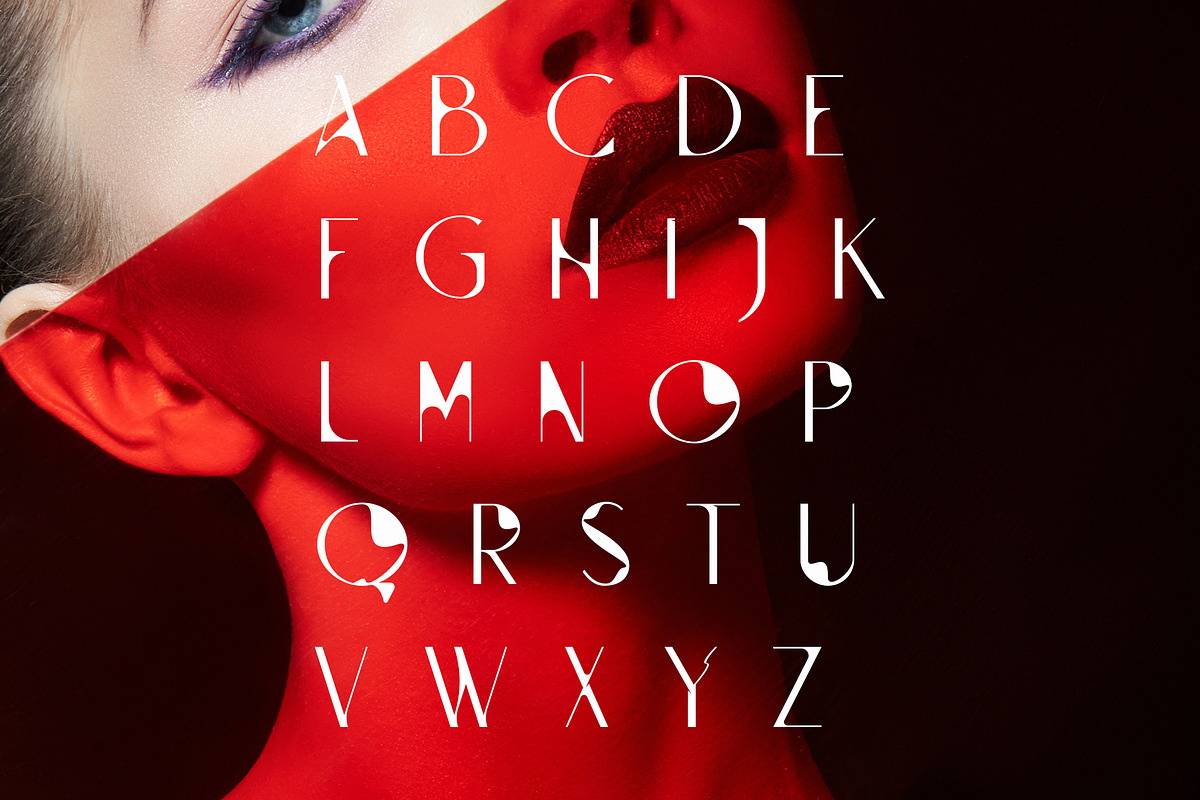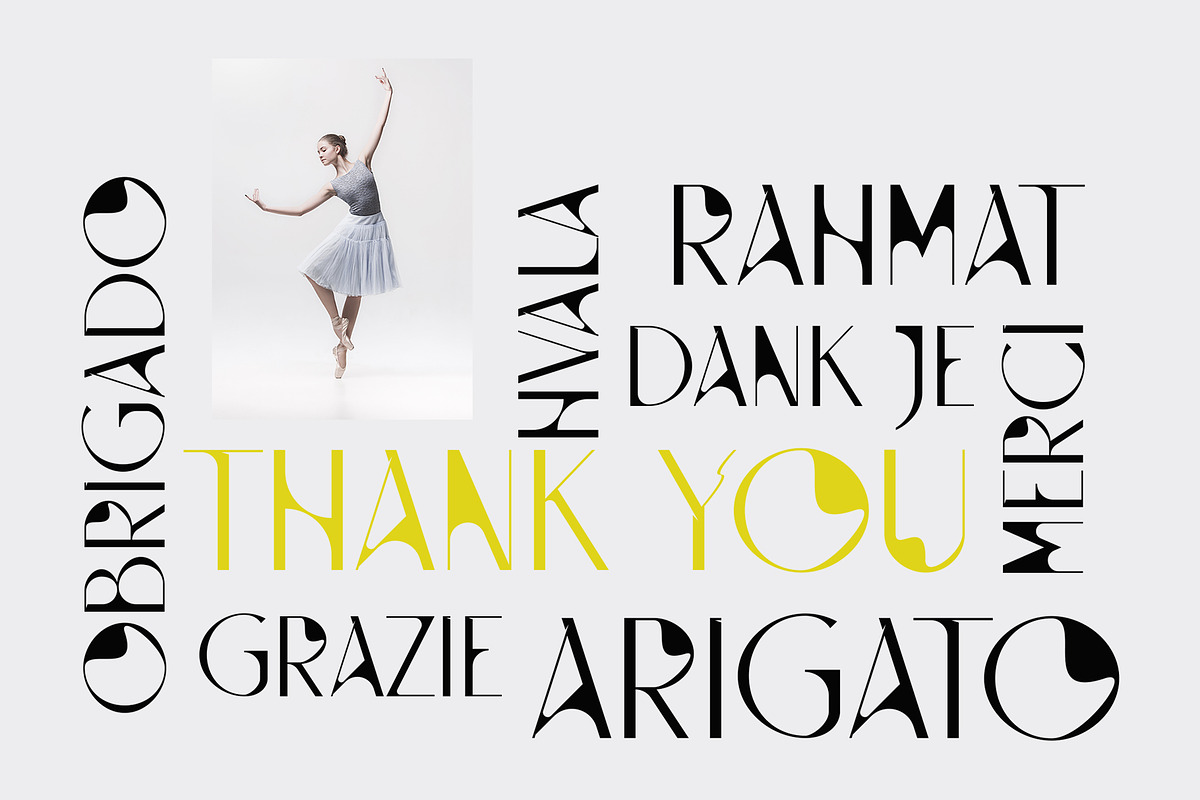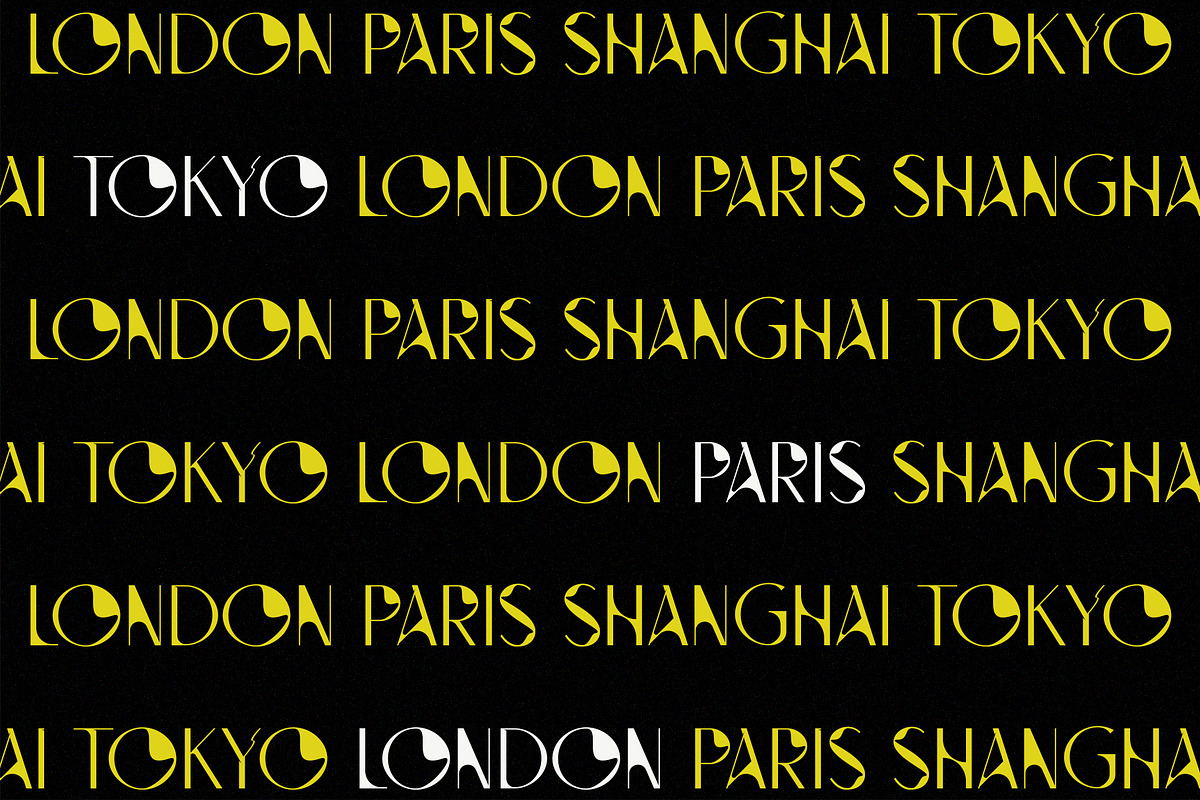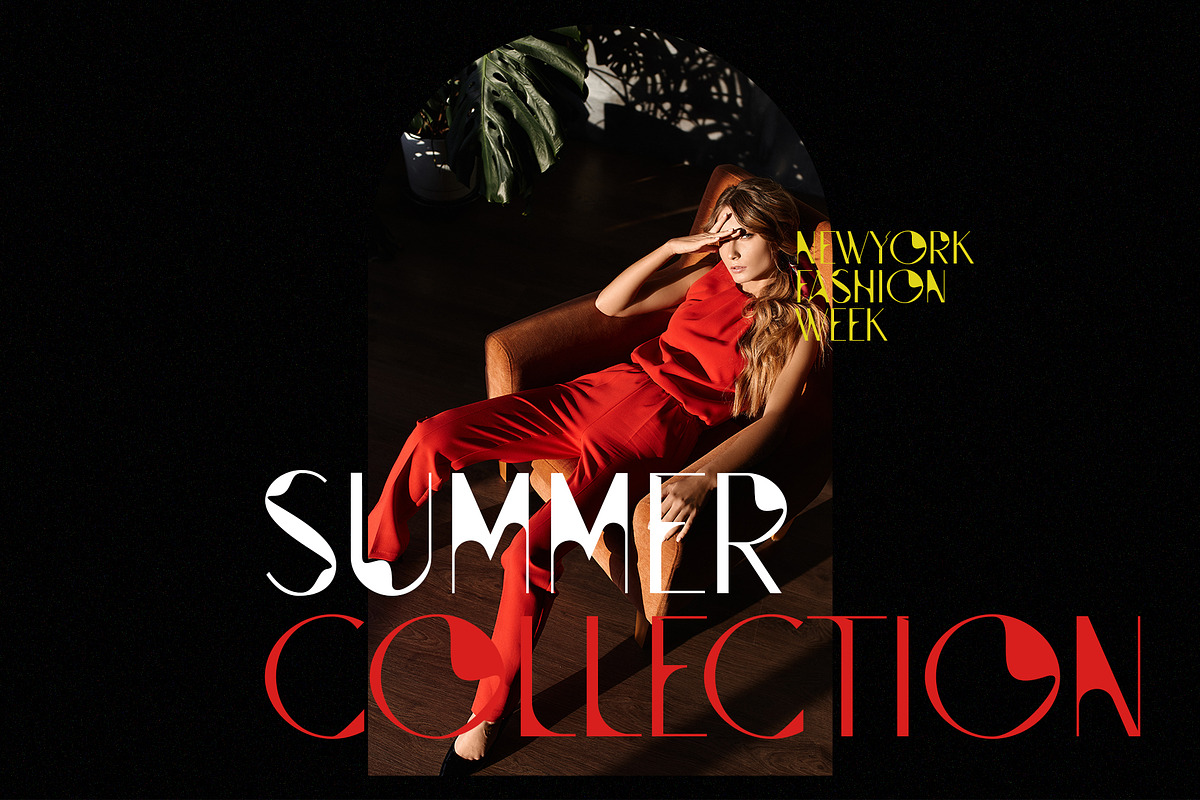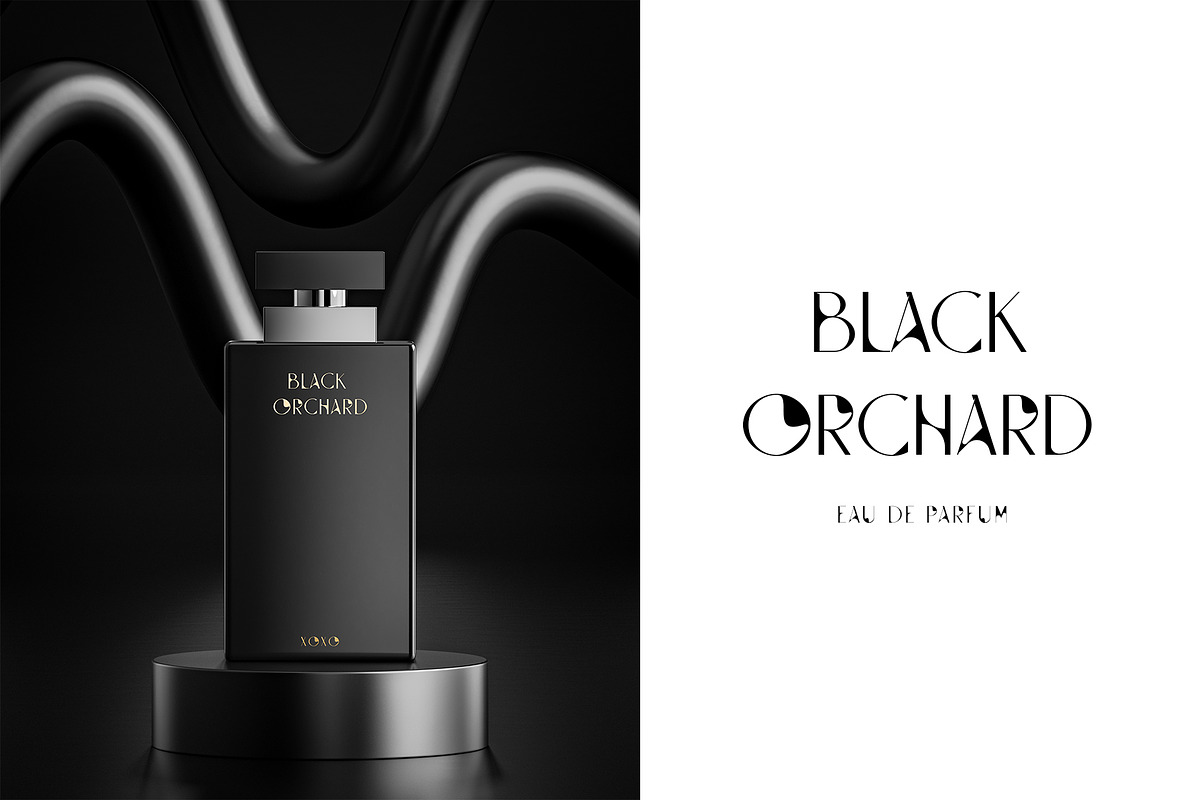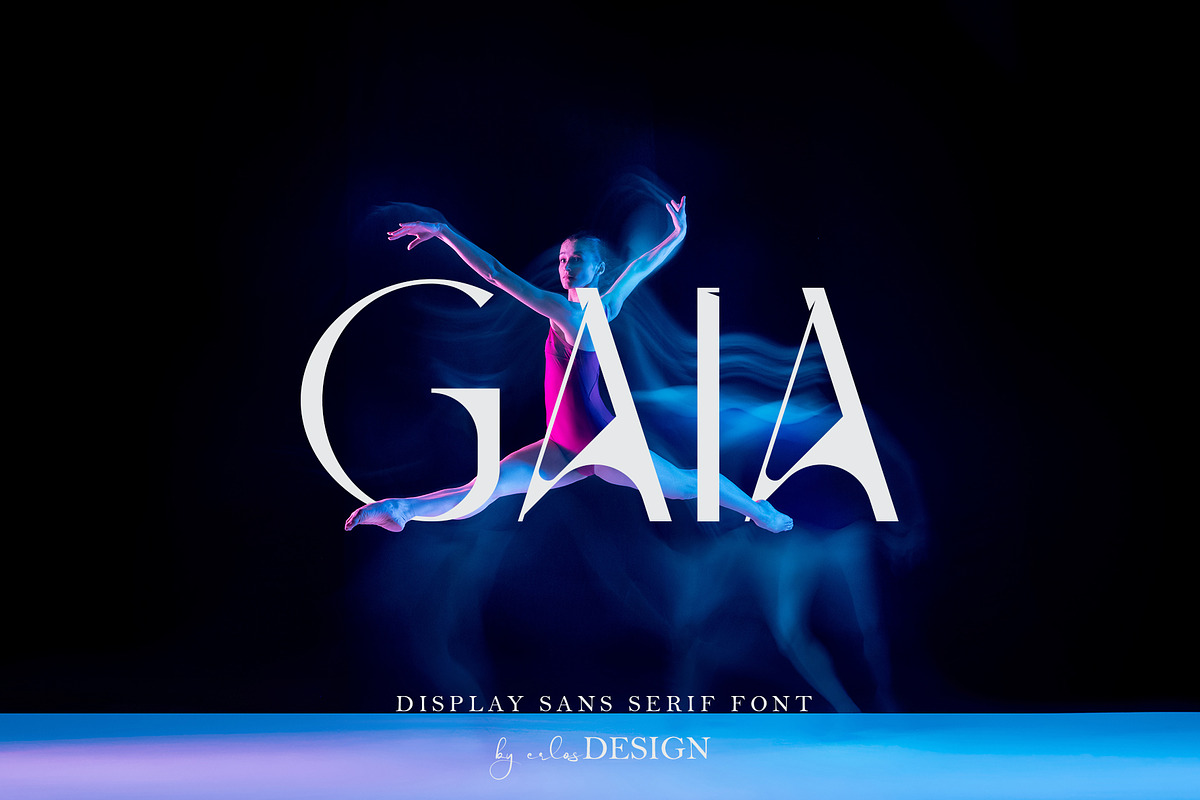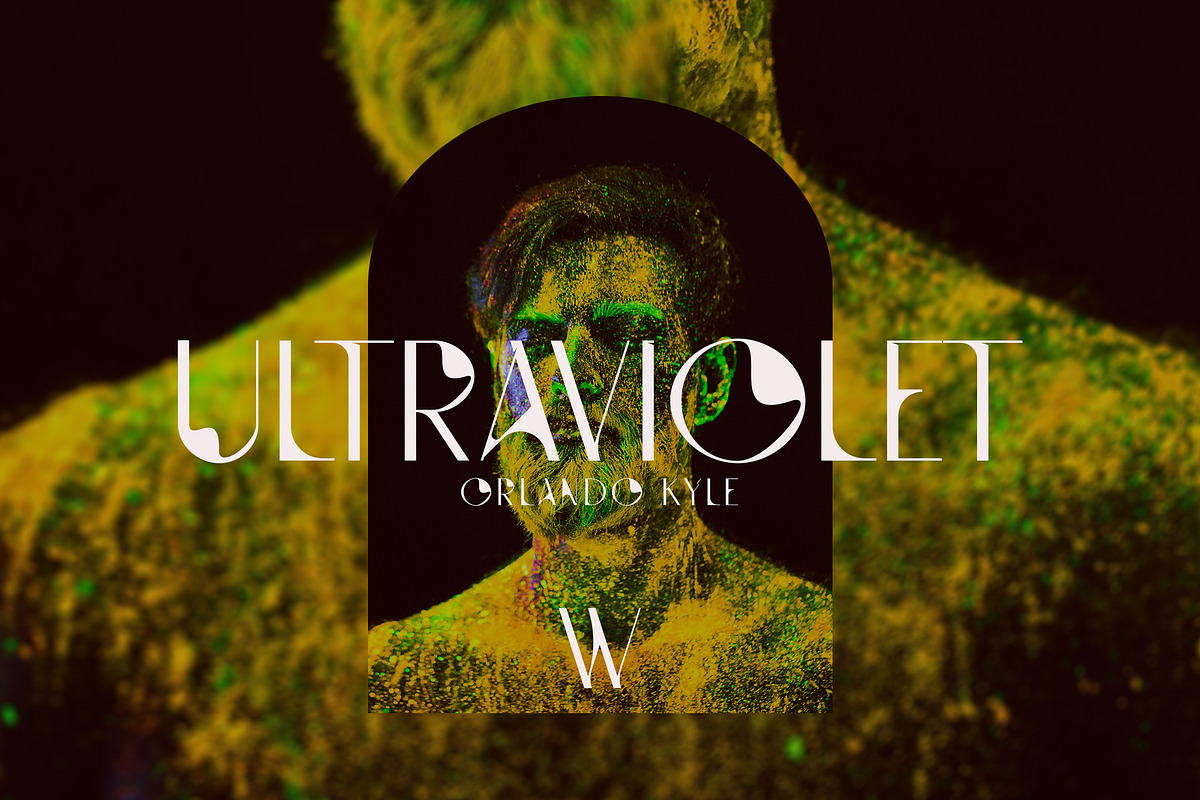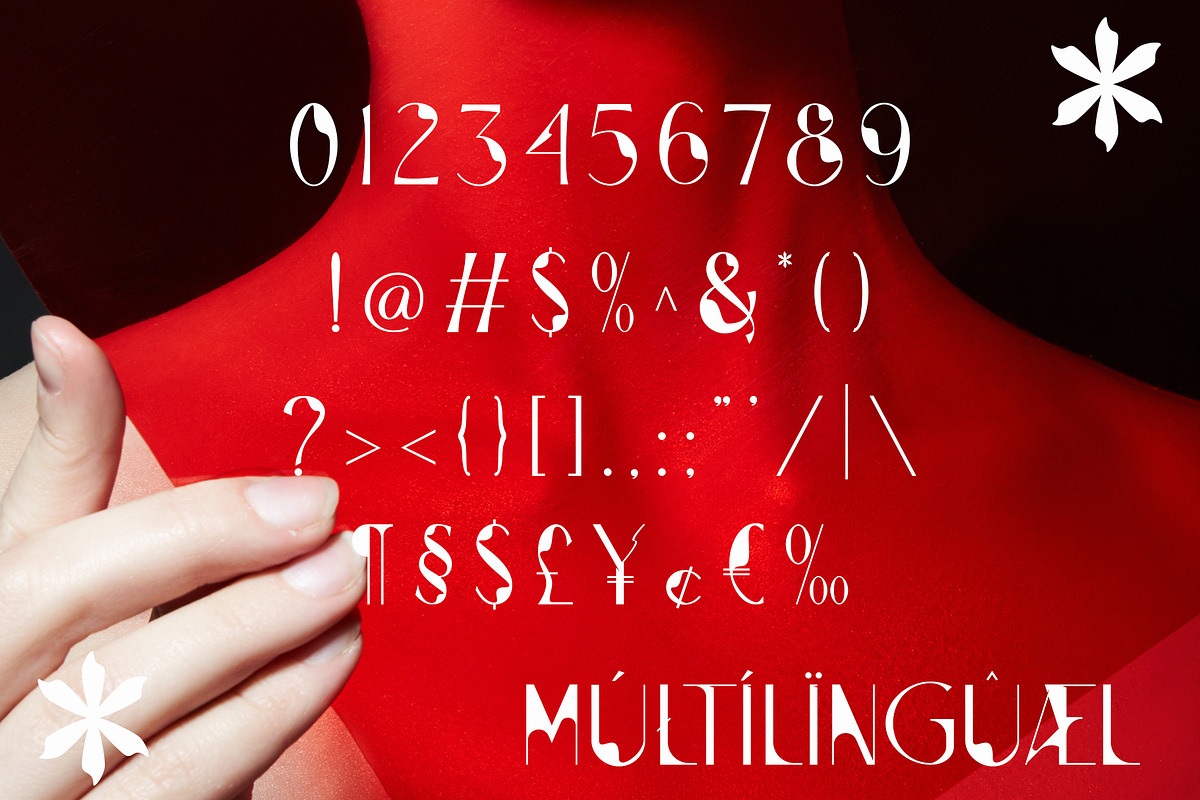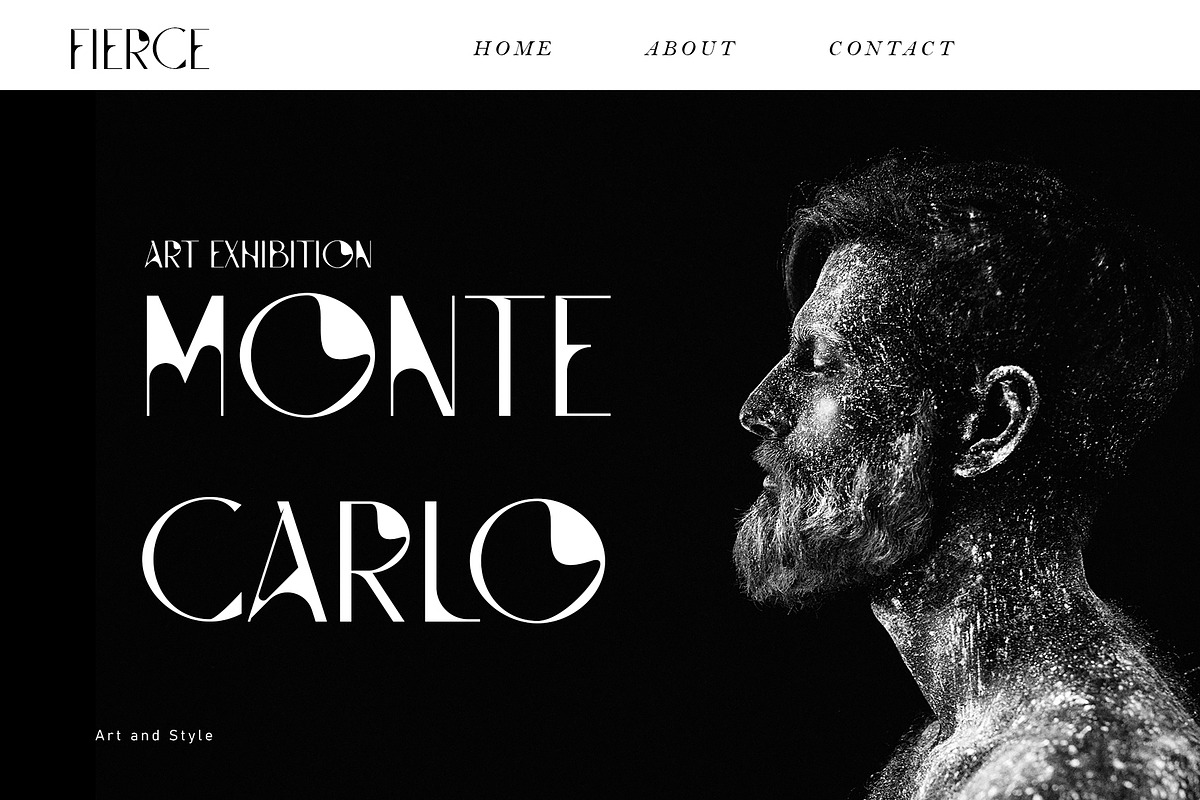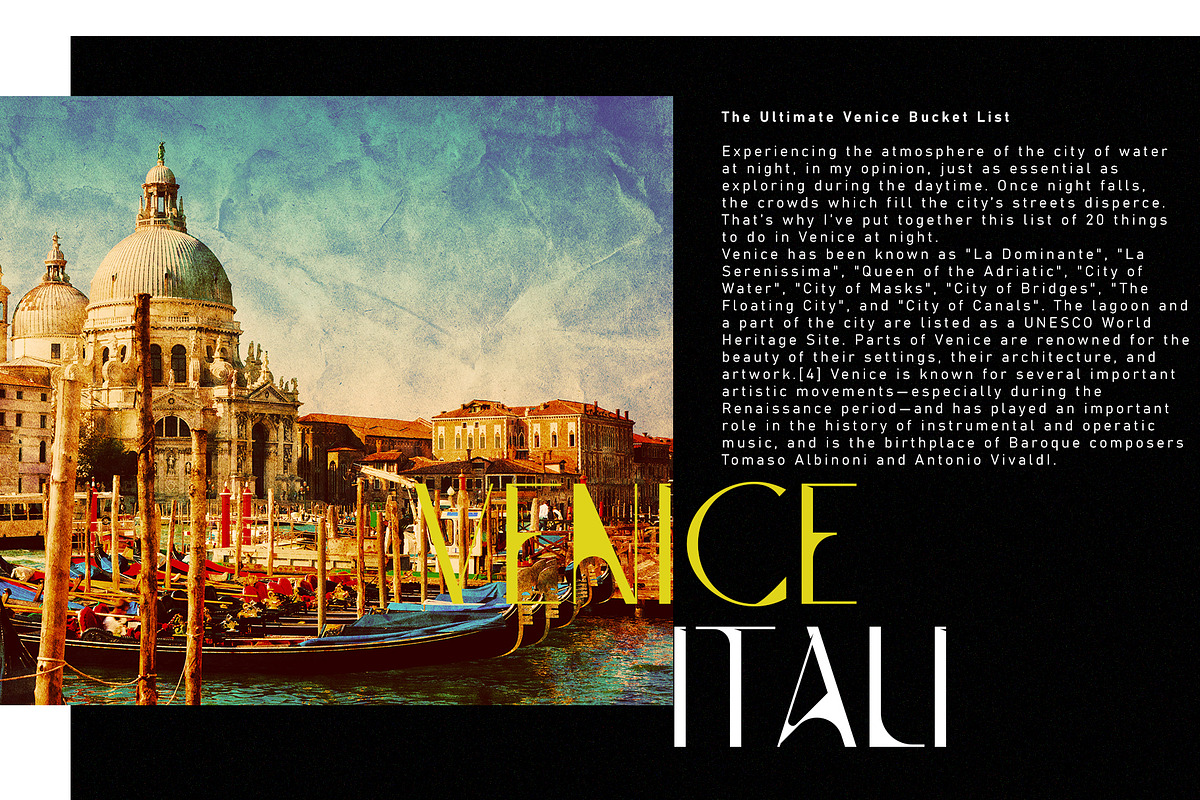
GAIA display sans
GAIA - Display Sans Serif Font by erlosDESIGN
GAIA is a display sans serif font with modern style. It includes uppercase letters, numeral, a large range of punctuation and also multilingual support. Perfects for poster, web design, magazine cover, album cover , branding and many more.